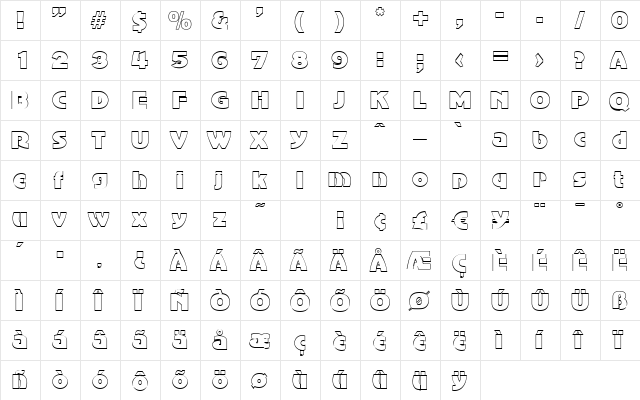
JessyBeckerOutline Regular
Design Context for JessyBeckerOutline Typeface
JessyBeckerOutline brings ornamental detail and strong personality to headlines and identities, where visual impact matters more than quiet functionality.
Font Pairing: Pair with a clean neutral sans-serif for body copy to let JessyBeckerOutline's character lead without overwhelming the composition.
Pro Tip: Use JessyBeckerOutline exclusively at display sizes — it was designed to be seen, not read at length. Let a neutral companion handle body copy.